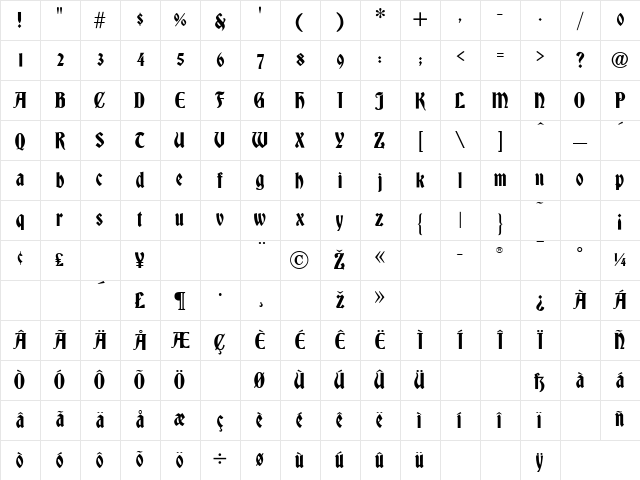
Bradley Regular Free Font
Bradley Regular
Foundry: Digitized by Dan X. Solo. Software by Dover Publications, Inc
Design Context for Bradley
Bradley is a composed and adaptable typeface that performs quietly and consistently across a wide range of design contexts.